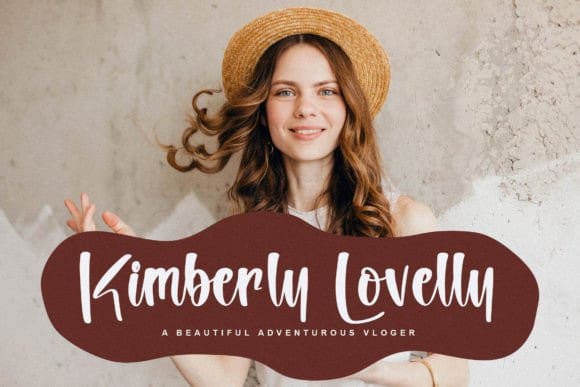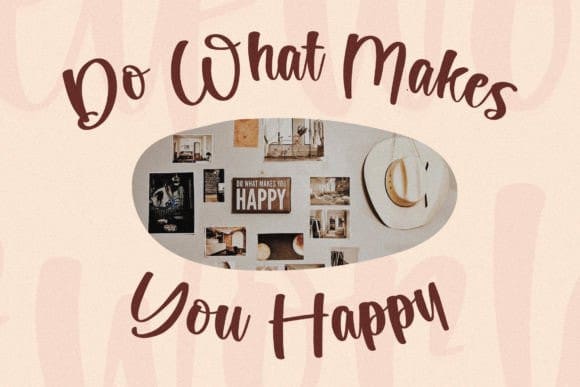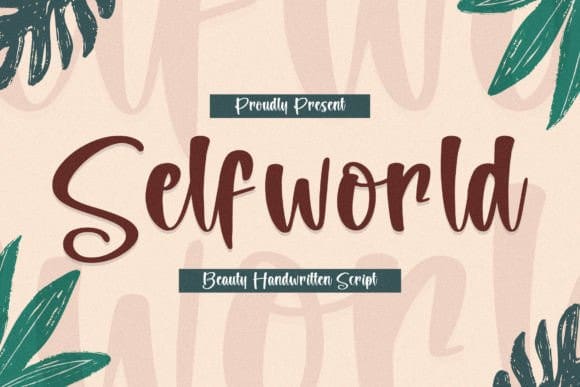
Selfworld Script Font
Selfworld Script Font is a beautiful handwritten font suitable for any project such as logos, branding projects, homeware designs, product packaging, mugs, quotes, posters, shopping bags, T-shirts, book covers, name cards, invitation cards, greeting cards, labels, photography, watermark, special events, and all your other lovely projects that need a beautiful script taste.